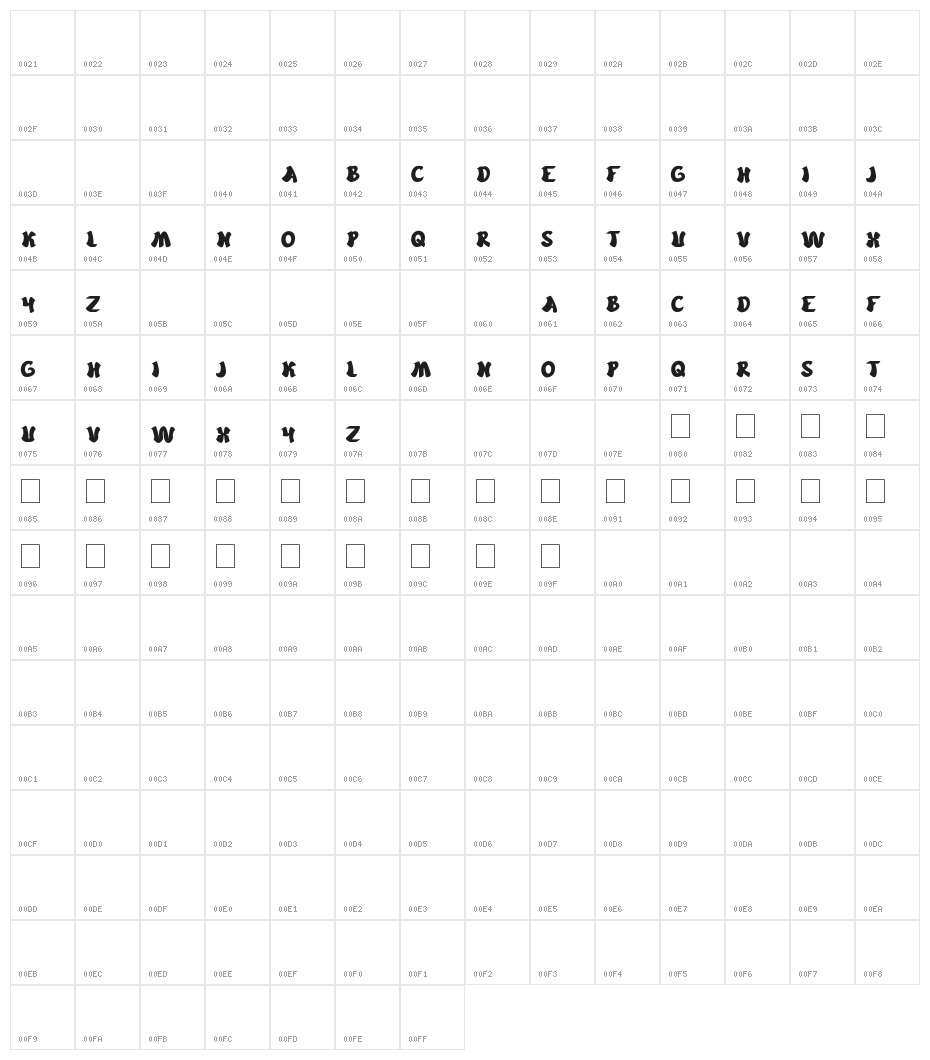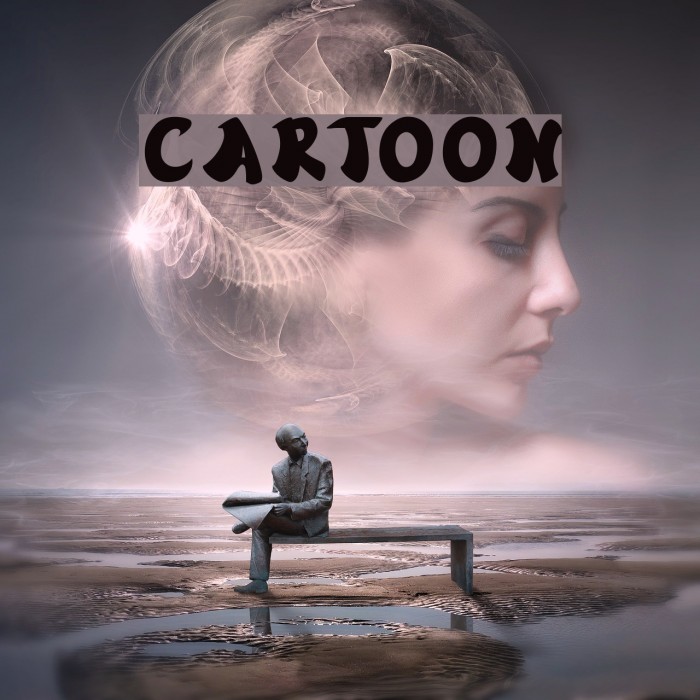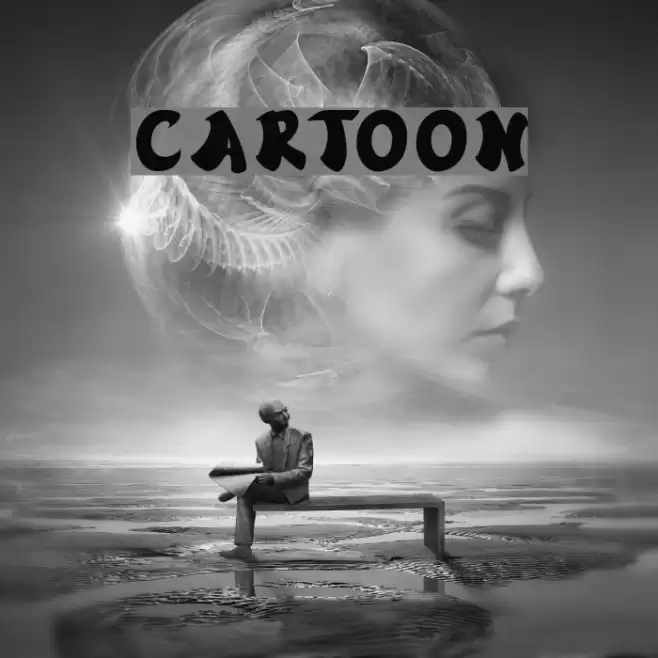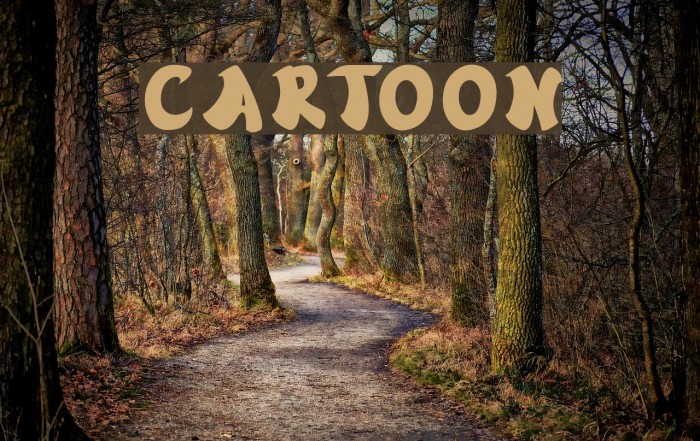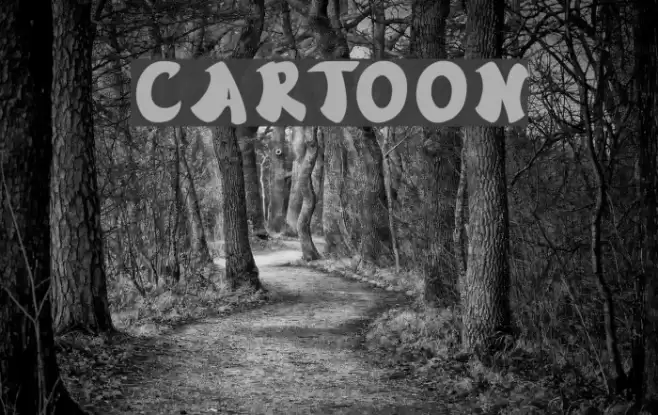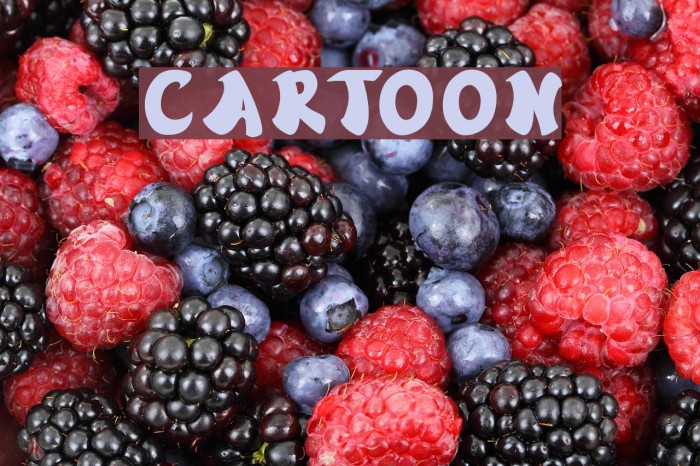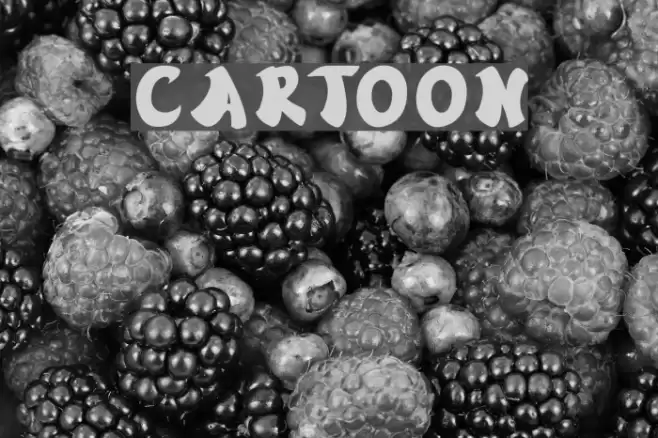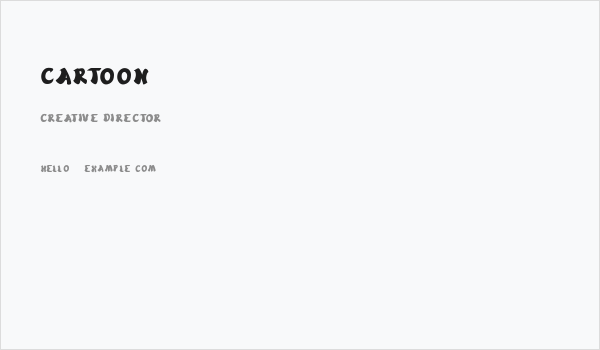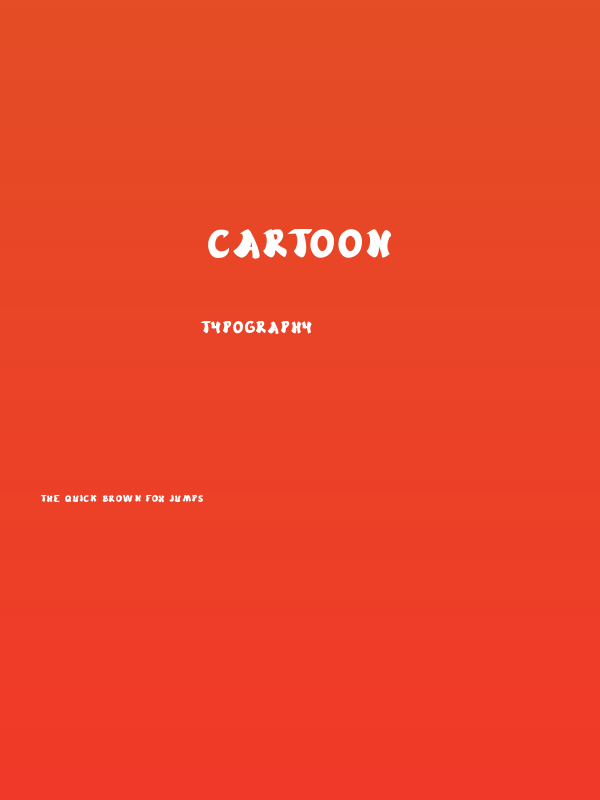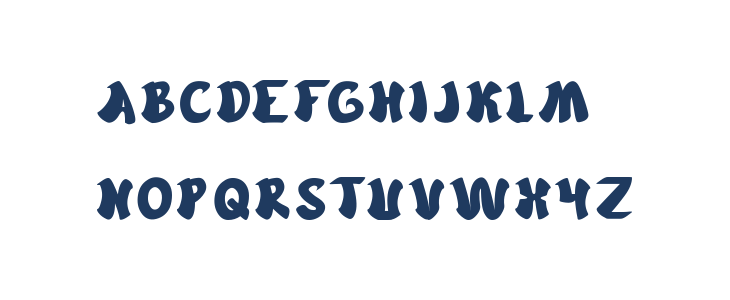
cartoon Font
cartoon Description
This playful and bold font features thick, rounded characters with a whimsical flair, reminiscent of cartoon lettering. The strokes are heavy and consistent, providing a strong visual impact. The characters have a slight tilt, adding to their dynamic and lively appearance. The font's unique style makes it stand out, with exaggerated curves and a fun, informal vibe. It's perfect for projects that require a touch of humor and creativity, capturing attention with its distinctive and engaging design.
| Proposed Projects | Ideal for children's books, comic strips, playful branding, and eye-catching posters. |